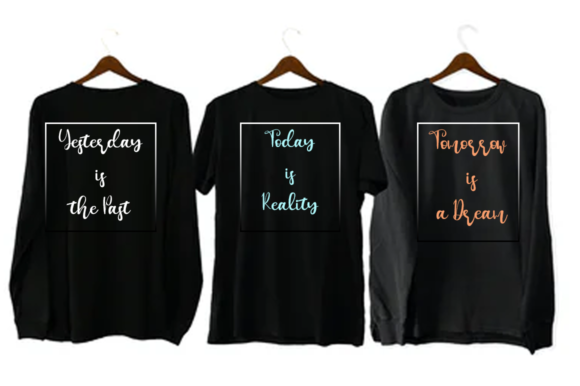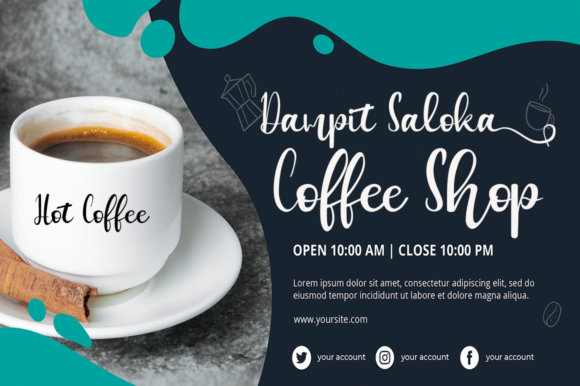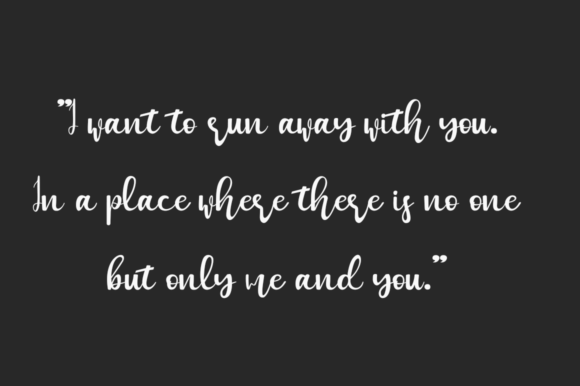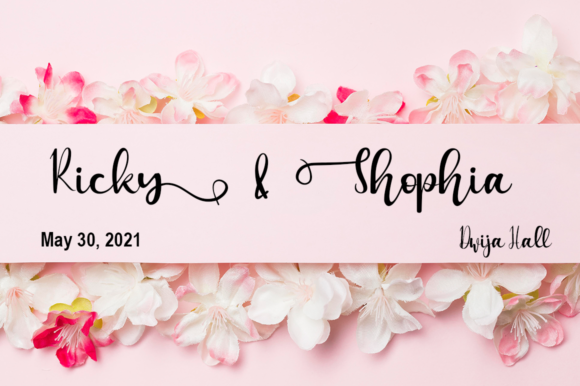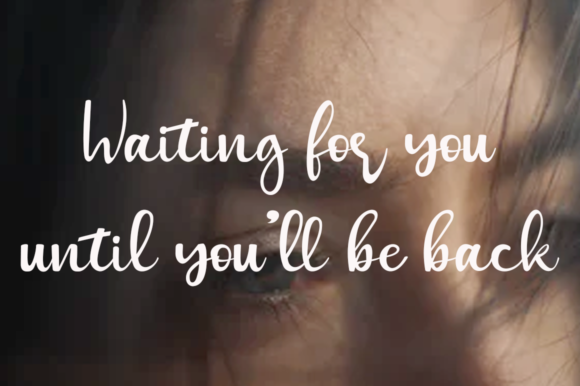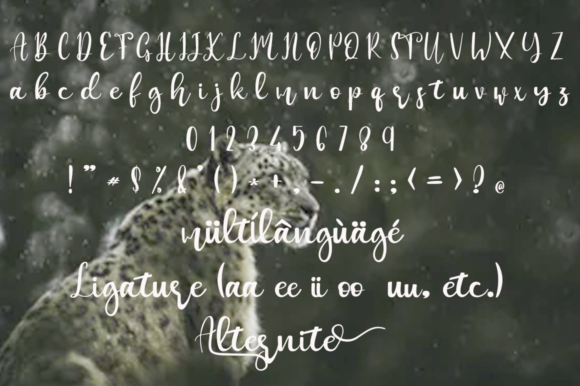
Maskumambang Font
About Maskumambang Font
“Maskumambang” is a lovely handwritten font that exudes a friendly and flowing vibe. With its charming and natural letterforms, this typeface is perfect for a wide range of projects that require a personal and handwritten touch.
The flowing characters of “Maskumambang” add a sense of elegance and whimsy to any design. Whether you’re creating wedding invitations, birthday cards, watermarks, or any other project that calls for a warm and personal touch, this font will bring a delightful and inviting feel to your designs.
One of the notable features of “Maskumambang” is its versatility. It can be used in both formal and informal contexts, making it suitable for a variety of design purposes. The font’s handwritten style gives it a genuine and authentic feel, adding a sense of intimacy and personality to your projects.
The beauty of “Maskumambang” lies in its simplicity and readability. Its legible characters ensure that your message is conveyed effortlessly while maintaining a sense of elegance and charm. This makes it a versatile choice for various design applications, including branding, packaging, social media graphics, and more.
Whether you’re designing a heartfelt wedding invitation or creating a unique birthday card, “Maskumambang” offers a delightful and genuine handwritten aesthetic that will captivate your audience. Its friendly and flowing characters will bring a personal touch to your designs and create a warm and inviting atmosphere.
In summary, “Maskumambang” is a lovely handwritten font that adds a friendly and flowing touch to your designs. Its versatility makes it suitable for a range of projects, from wedding invitations to birthday cards and more. With its charming letterforms, this font will bring an authentic and personal feel to your designs, creating a warm and inviting atmosphere.